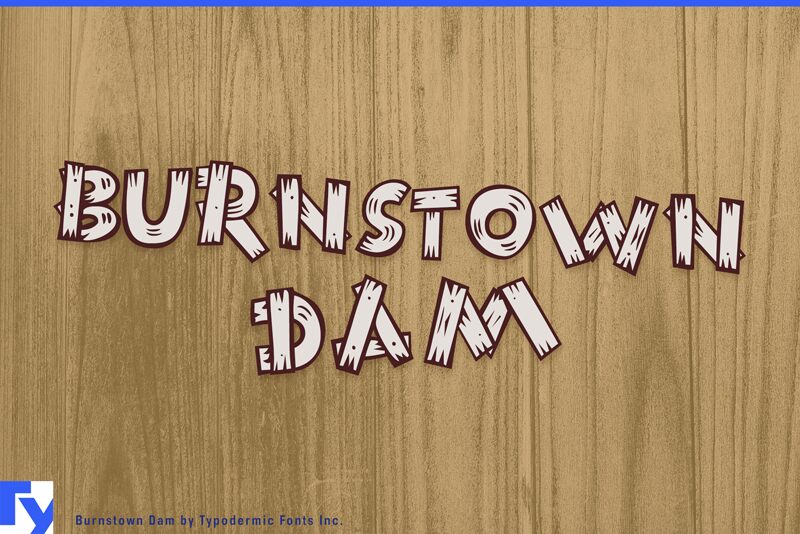
Burnstown Dam Nails, a captivating display font crafted by Typodermic Fonts, exudes a distinct rugged charm. This light-weight interpretation of the Burnstown Dam family showcases a textured, nail-inspired aesthetic that immediately commands attention. The weathered, industrial-inspired appearance evokes a sense of raw, uncompromising character, making it an ideal choice for projects seeking a bold, striking typographic accent.
Burnstown Dam Nails' unique nail-like texture and distinctive letterforms lend themselves beautifully to a wide range of design applications. From eye-catching headlines and impactful branding to rustic packaging and gritty editorial layouts, this font's versatility shines through, allowing designers to craft memorable typographic statements that resonate with audiences seeking a touch of industrial-inspired flair.
Burnstown Dam Nails